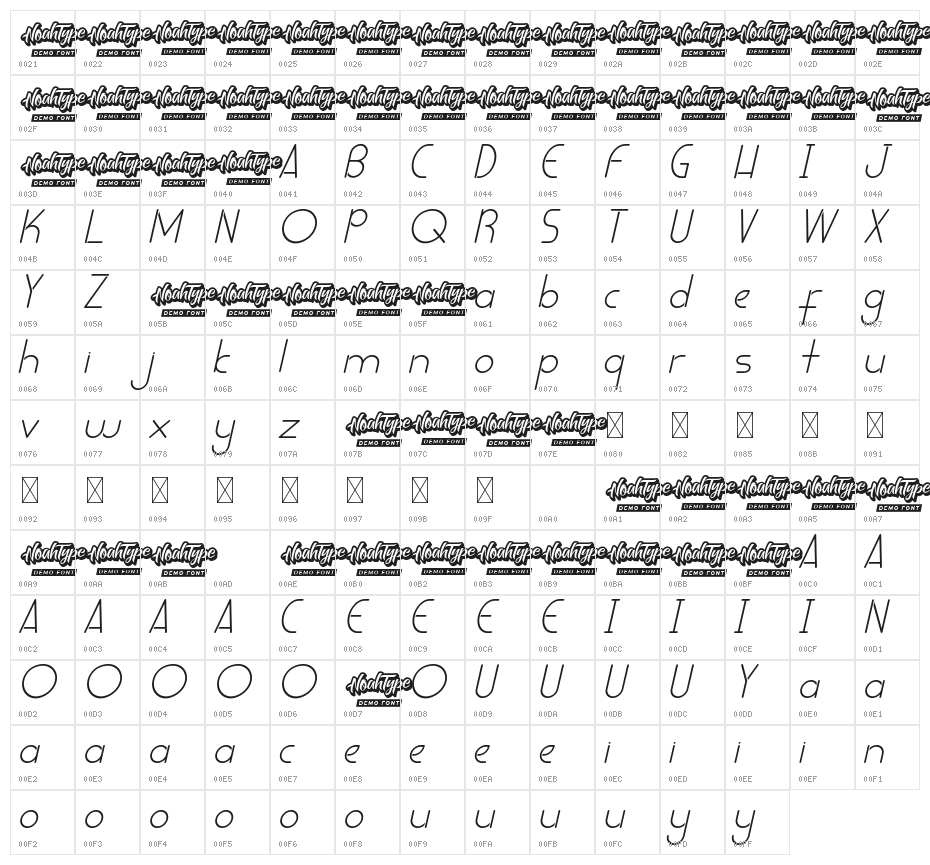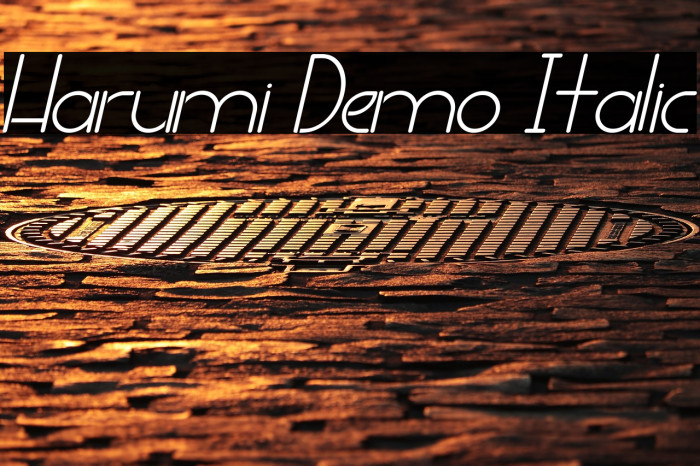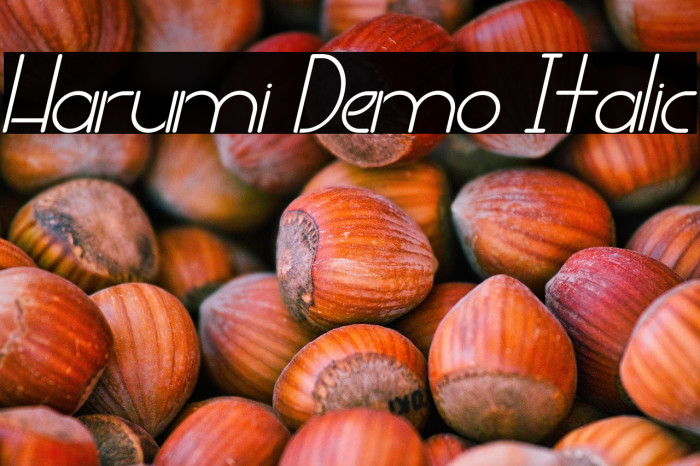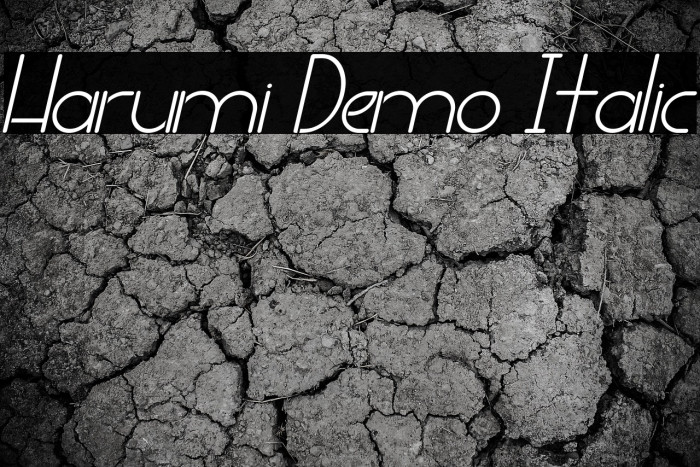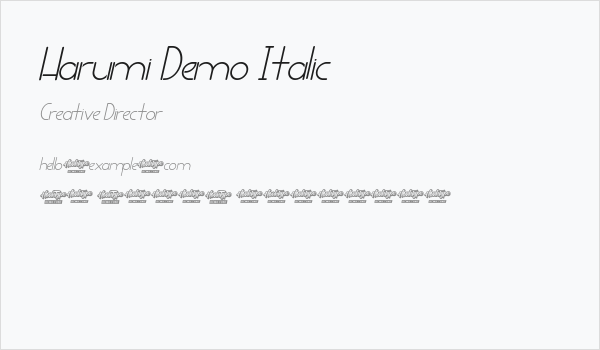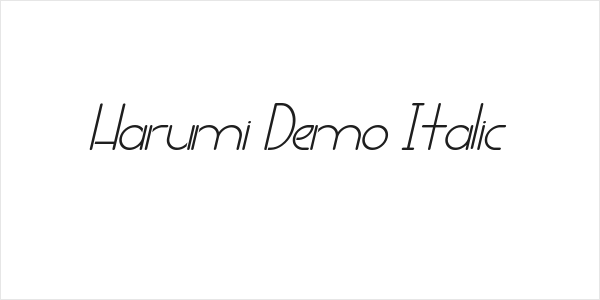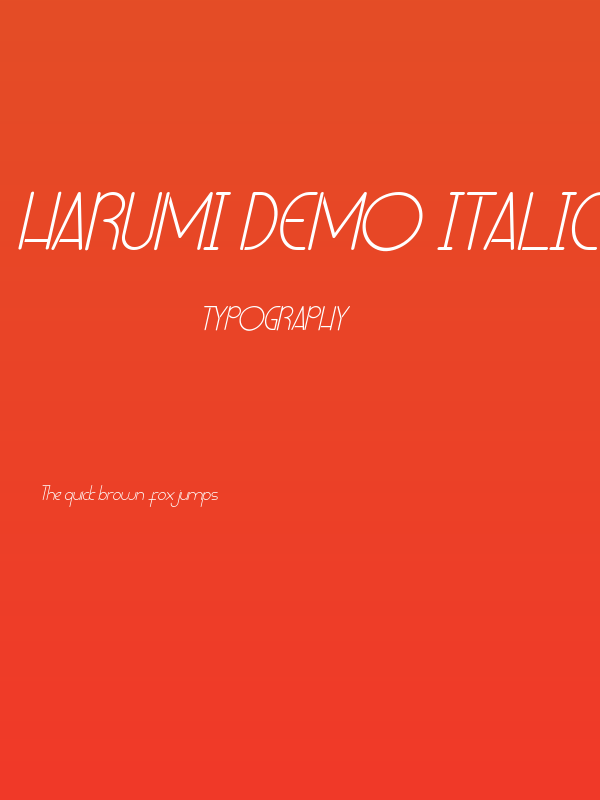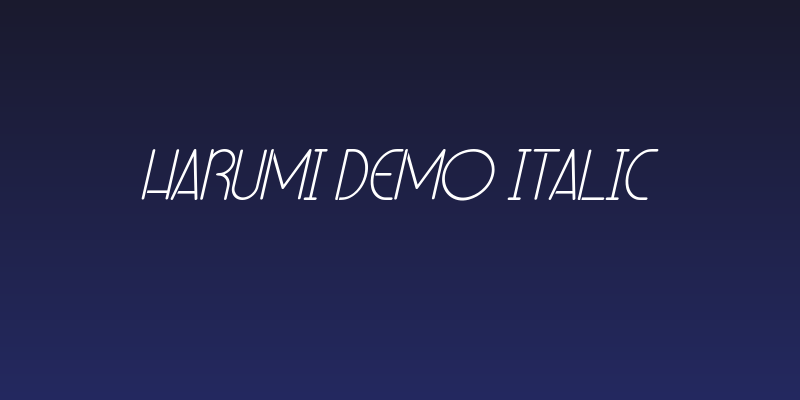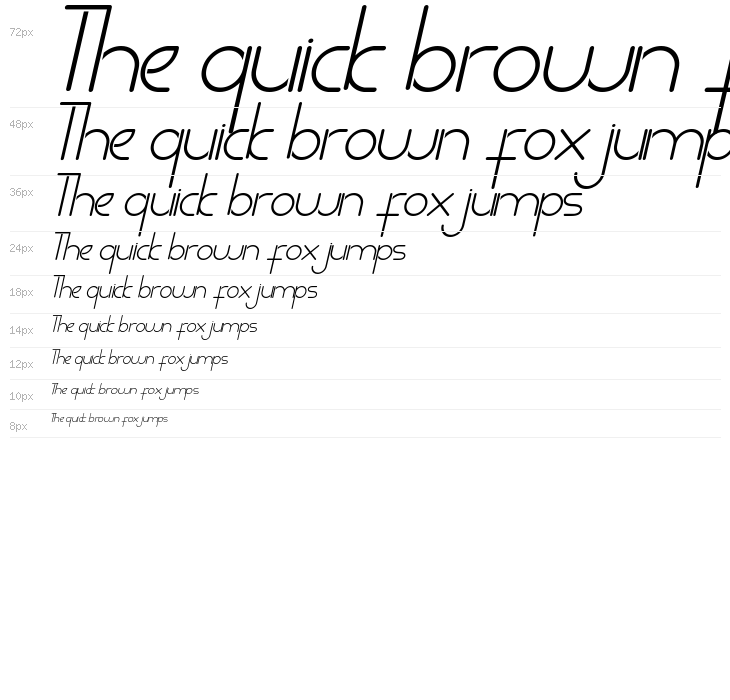
Harumi Demo Italic Font
Harumi Demo Italic Description
This font features a sleek, modern design with a distinct italic style. The characters are elongated and slightly slanted, giving a sense of motion and elegance. The strokes are consistent in width, providing a uniform appearance across all letters. The uppercase and lowercase letters maintain a cohesive look, with smooth curves and sharp angles that enhance readability. The numerals and special characters follow the same design principles, ensuring a harmonious visual experience. This font is ideal for projects that require a contemporary and stylish touch.